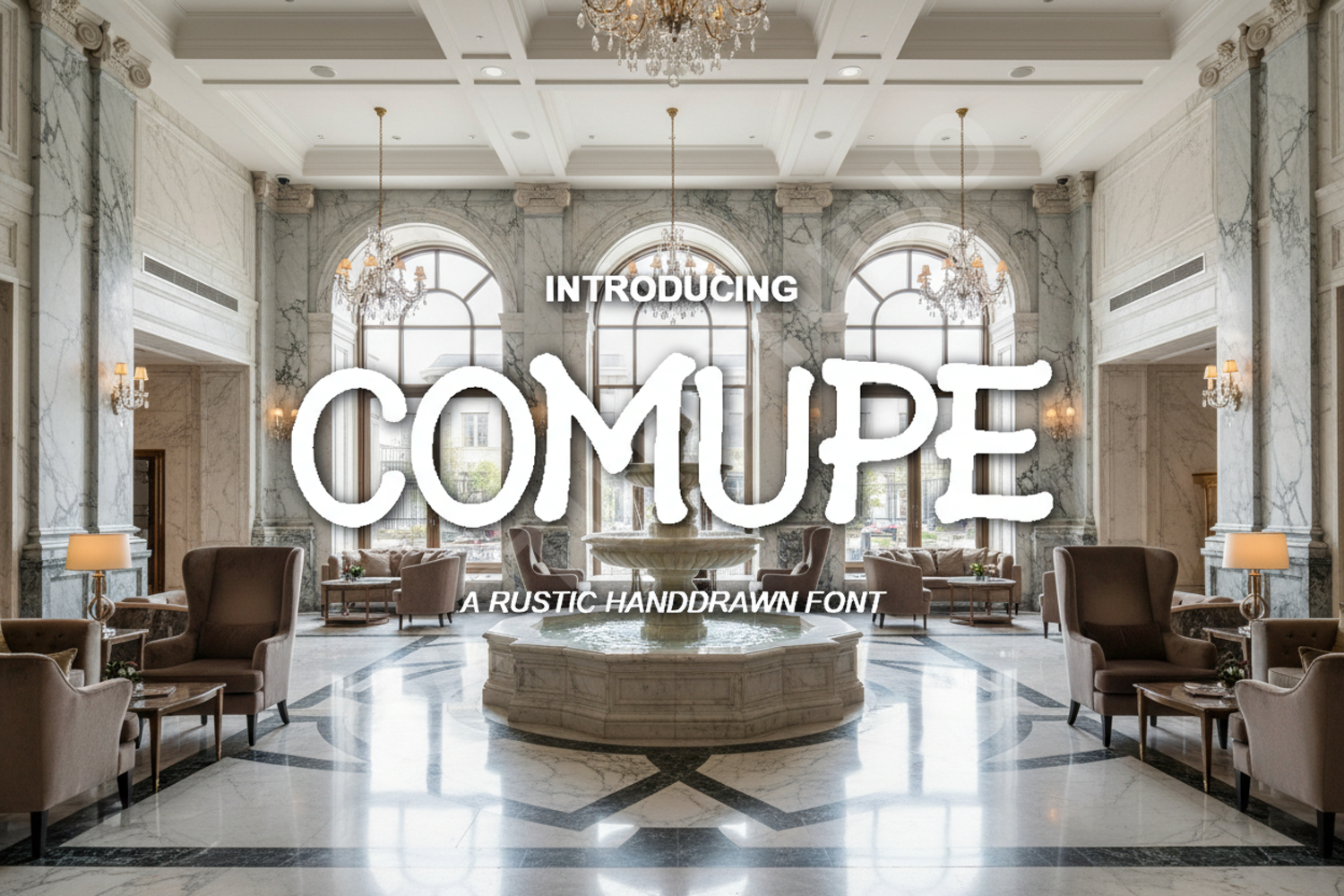
Comupe - Elegant and Sophisticated Modern Serif
Comupe
Elevate your creative projects with Comupe, a premium serif font that seamlessly blends timeless elegance with modern sophistication. Designed with precision, Comupe features clean lines and balanced proportions, making it a versatile choice for designers seeking a high-end aesthetic. Whether you are working on a luxury brand identity or a minimalist editorial layout, this font provides the professional edge your work deserves.
- Comprehensive character set including uppercase, lowercase, numbers, and punctuation
- Multilingual support for global accessibility
- Standard ligatures for seamless flow
- High-End Branding: Create memorable logos and brand identities for luxury labels.
- Wedding Stationery: Perfect for elegant invitations, RSVP cards, and dinner menus.
- Editorial Design: Ideal for magazine headers, book covers, and sophisticated layouts.
- Digital Marketing: Enhance social media graphics and website banners with a touch of class.
- Product Packaging: Add a premium feel to cosmetics, fashion, and lifestyle products.